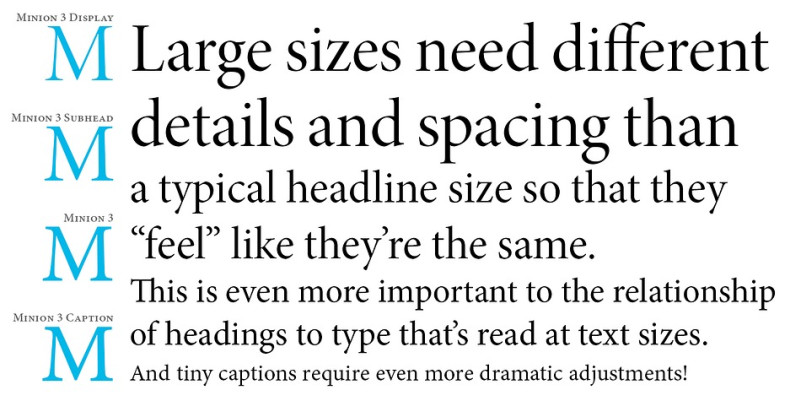
Minion Font
Hello Everyone, introduce our new product, Minion Serif Font Family. Robert Slimbach was inspired by the timeless beauty of the fonts of the late Renaissance. Minion was created primarily as a traditional text font but adapts well to today’s digital technology, presenting the richness of the late baroque forms within modern text formats. This clear, balanced font is suitable for almost any use.